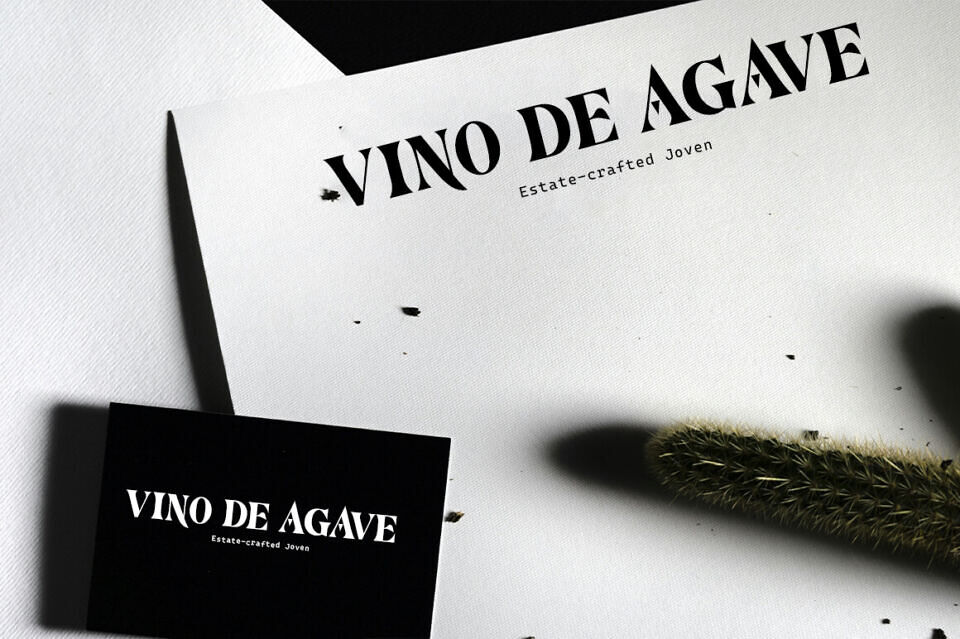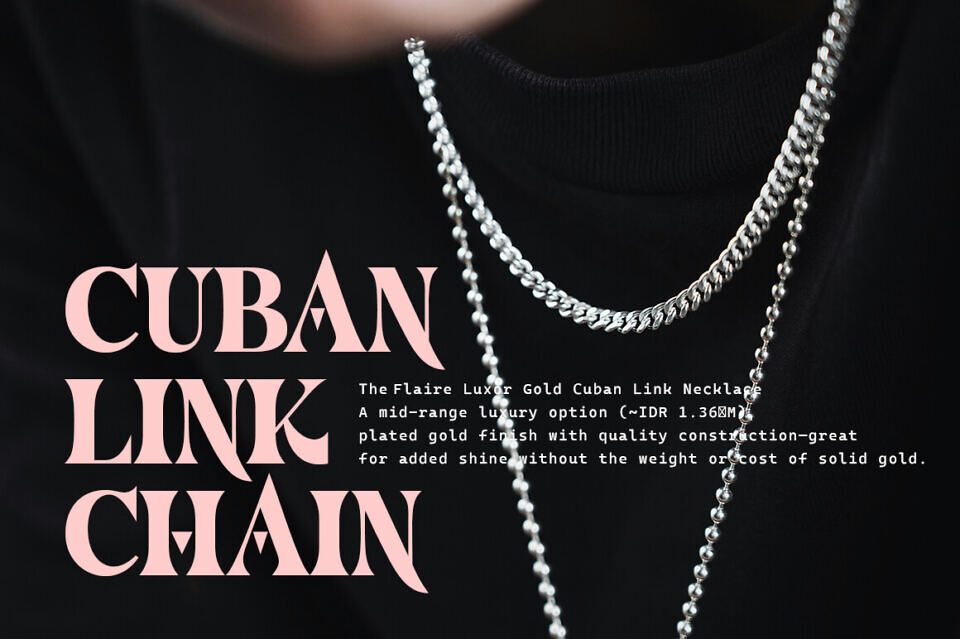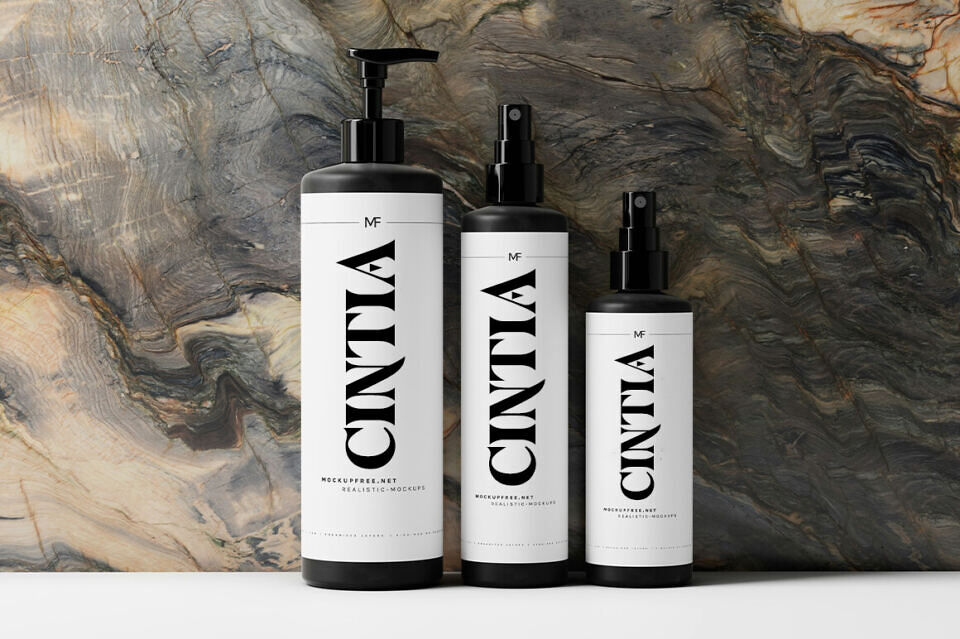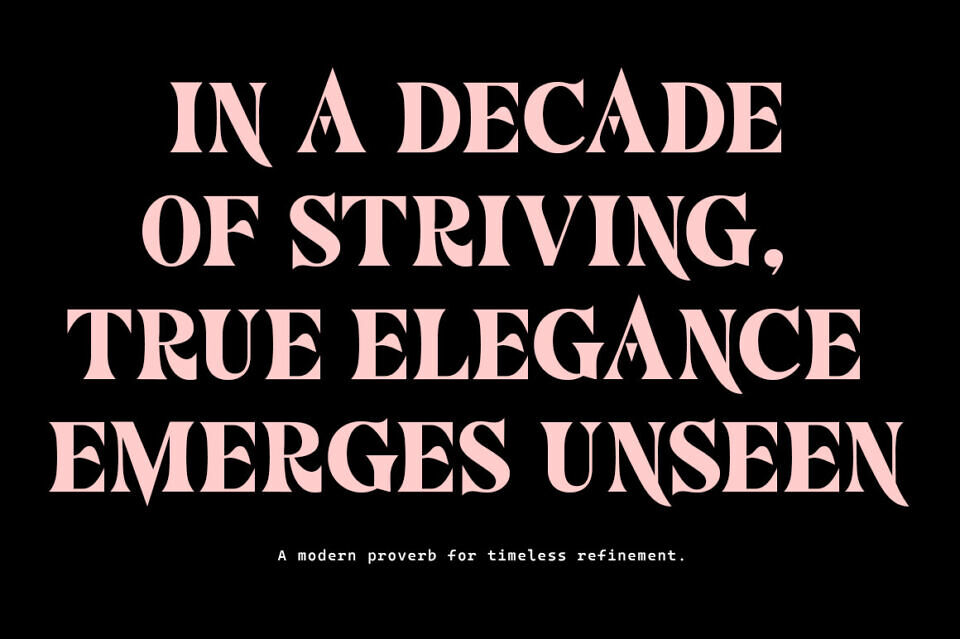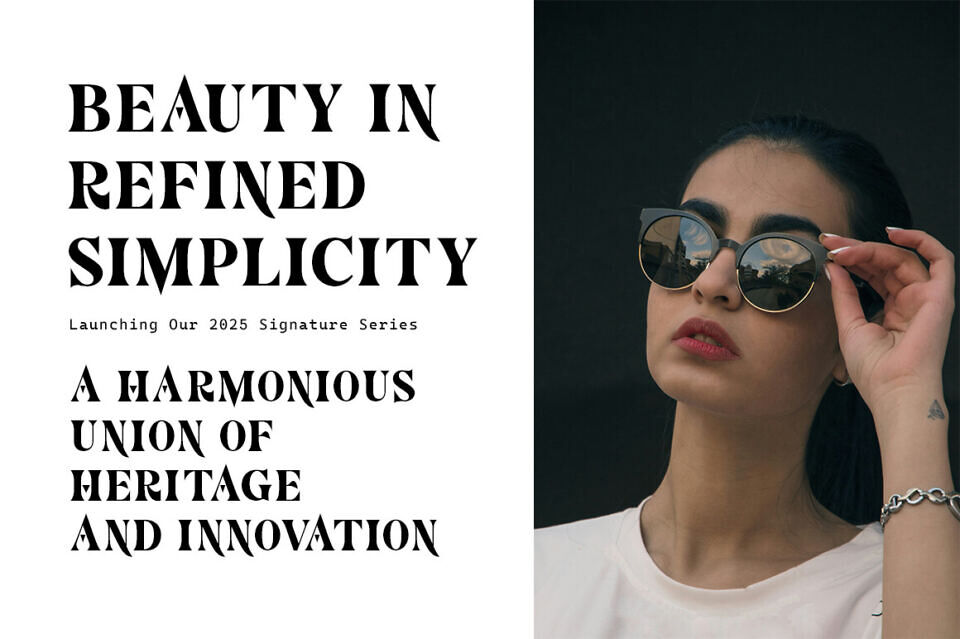
Mardon Font
MARDON is a sophisticated serif font that exudes a timeless elegance. Its clean lines and balanced proportions create a sense of refinement and sophistication, while the subtle curves and delicate serifs add a touch of warmth and personality.
The font’s versatility makes it suitable for a wide range of applications, from elegant invitations and vintage-inspired branding to captivating book covers and timeless signage.